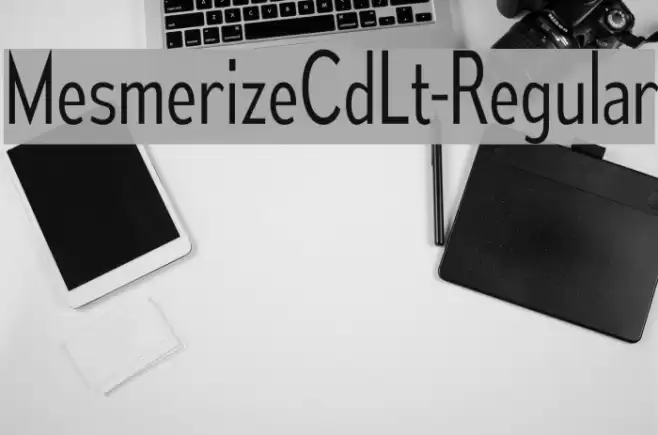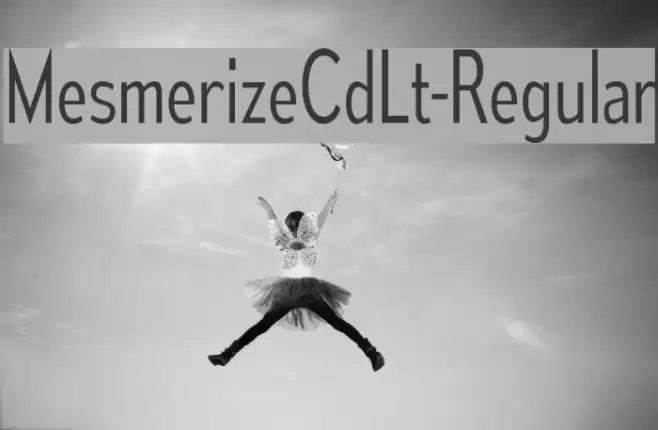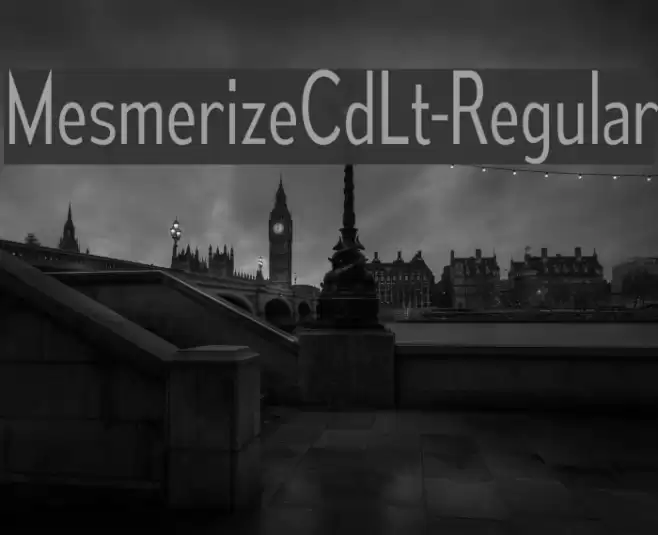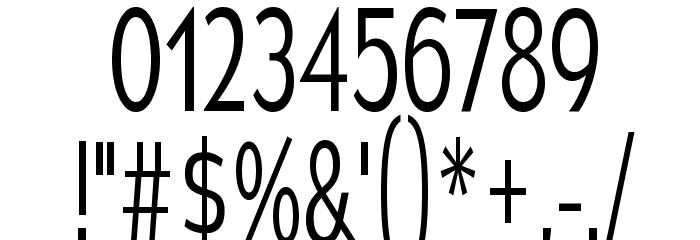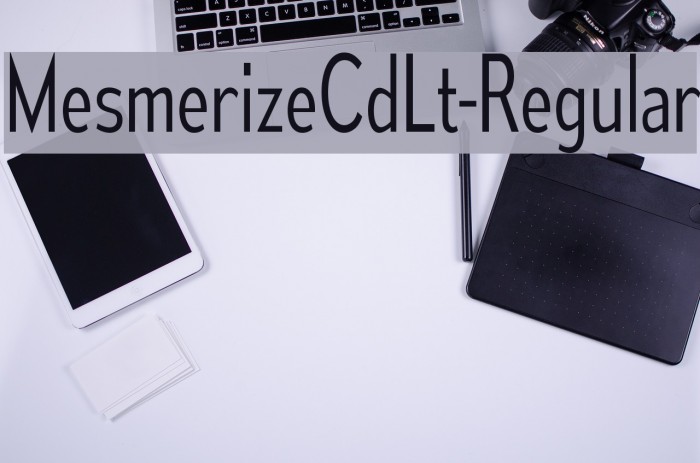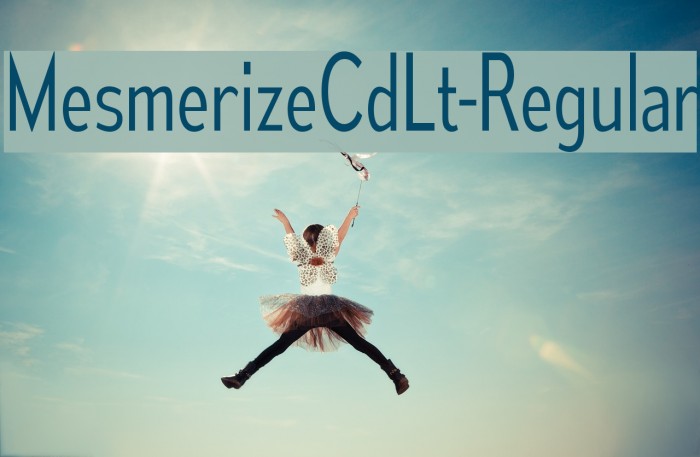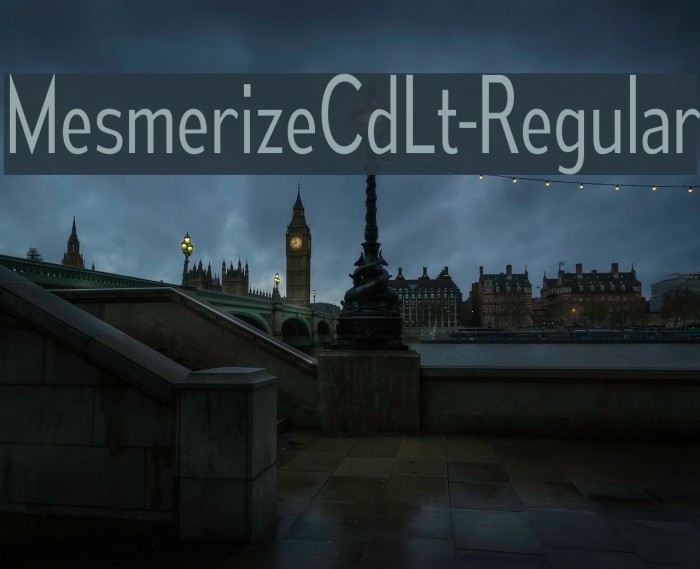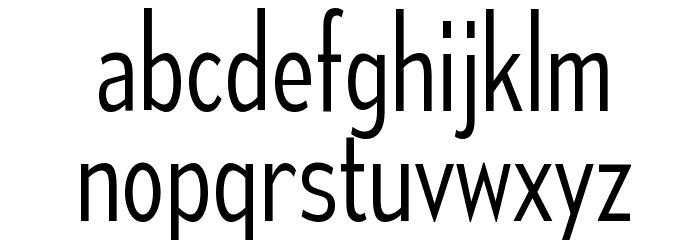
MesmerizeCdLt-Regular Font
MesmerizeCdLt-Regular Description
This font features a clean and modern sans-serif design with a slightly condensed structure. The characters are uniform in width, providing a balanced and harmonious appearance. The uppercase letters are bold and assertive, while the lowercase letters maintain a consistent height, enhancing readability. The numerals are clear and distinct, making them suitable for various applications. The special characters are well-defined, adding versatility to the font's use. Overall, this typeface exudes a contemporary and professional feel, ideal for digital and print media.
A modern, clean sans-serif font with a slightly condensed style from Uncategorized fonts.
- Proposed Projects: Ideal for branding, web design, editorial layouts, and corporate materials.